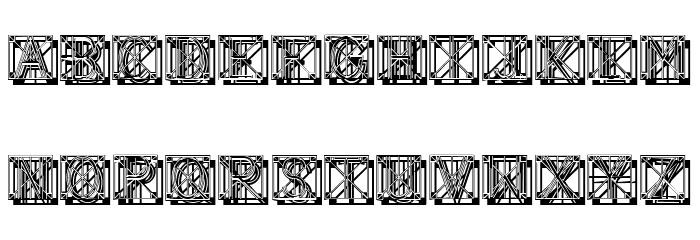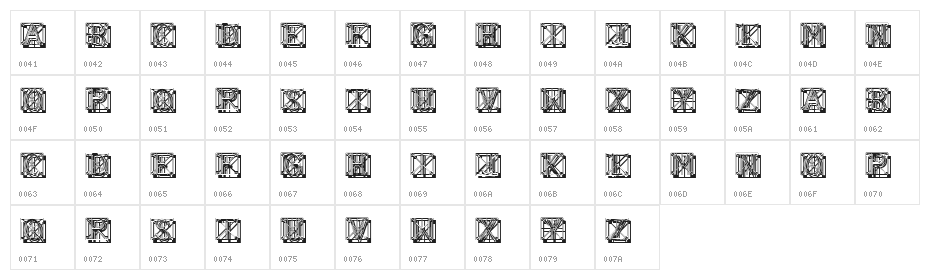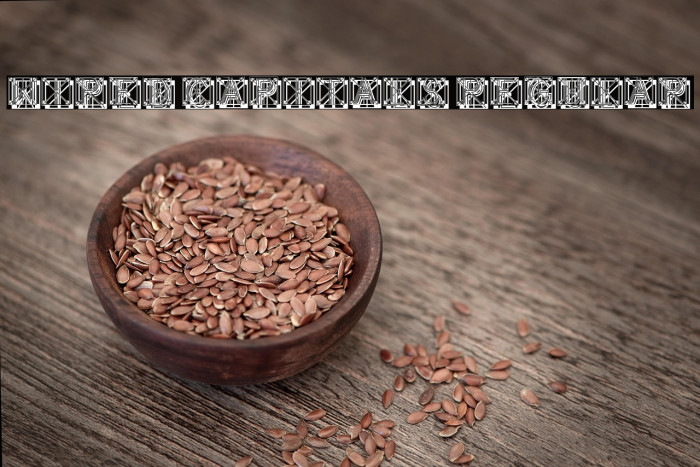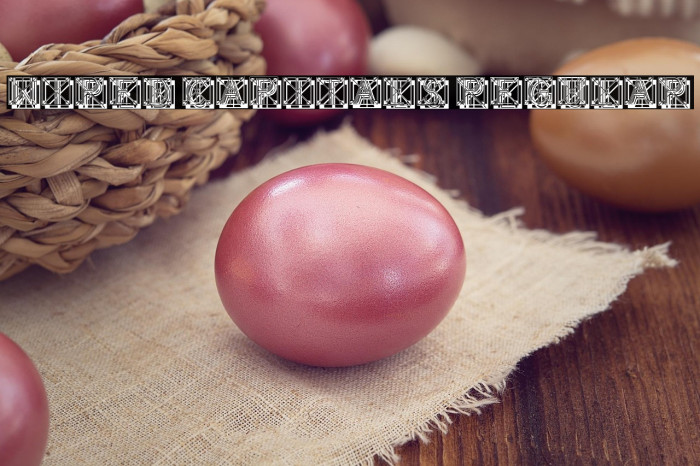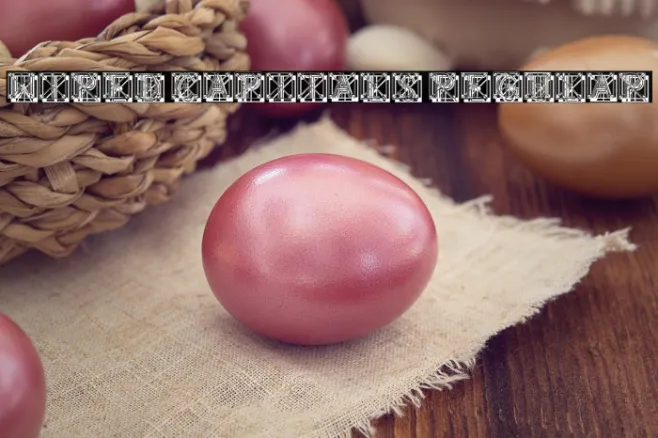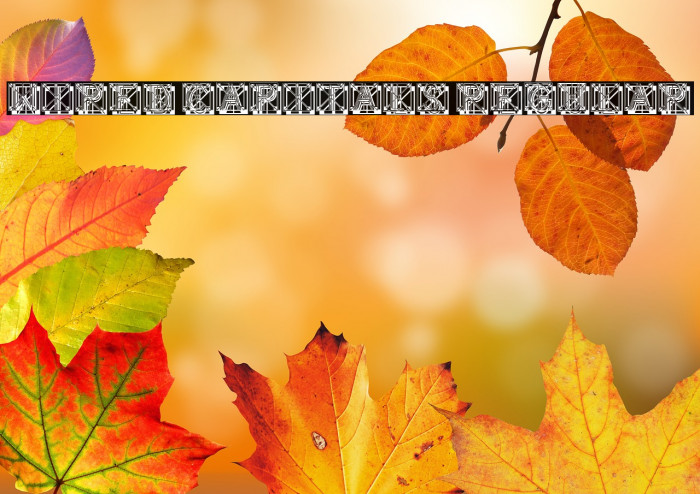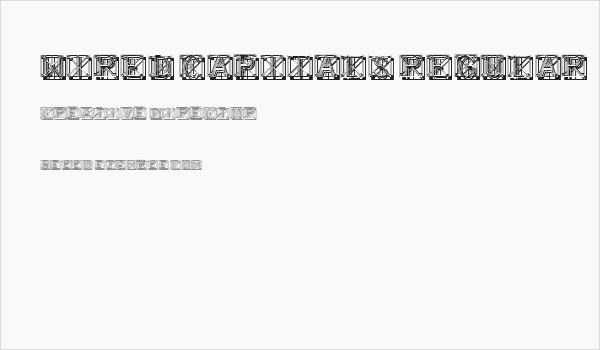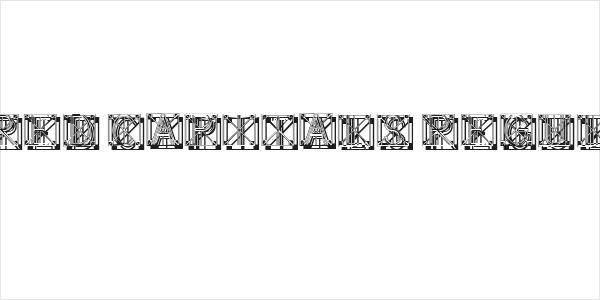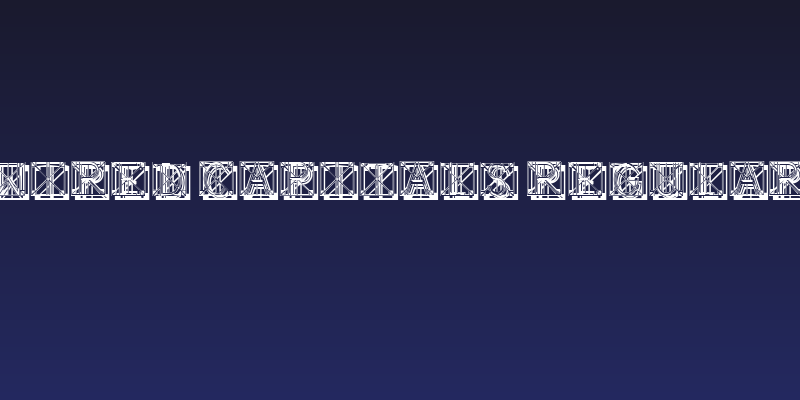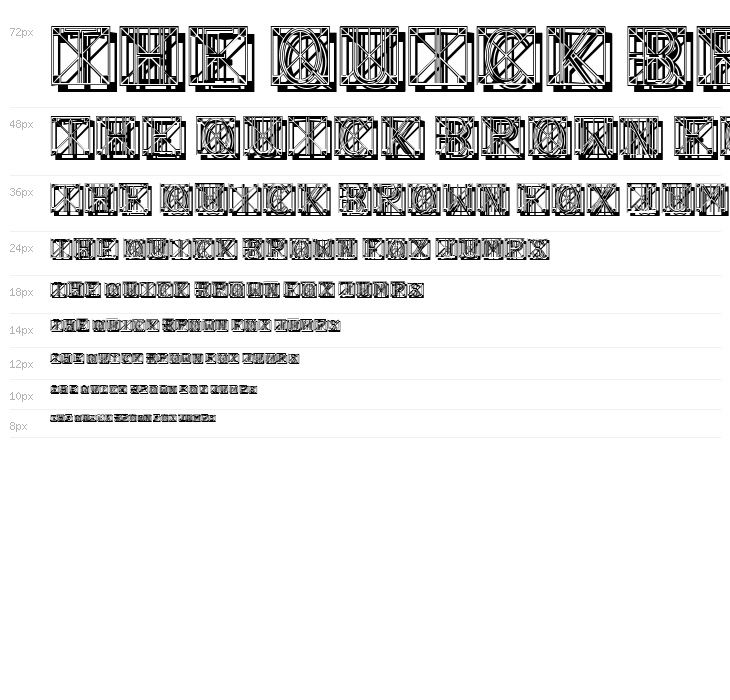
Wired Capitals Regular Font
Wired Capitals Regular Description
This font features an intricate, geometric design with a wired, grid-like structure. Each letter is enclosed within a square, creating a unique and modern appearance. The lines are thin and precise, forming a complex network that gives the font a technical and futuristic feel. The characters are uppercase only, with consistent sizing and alignment, making it suitable for decorative purposes. The overall style is highly detailed, with a focus on symmetry and balance, offering a visually striking and artistic presentation.
Proposed ProjectsIdeal for tech-themed posters, modern art projects, and innovative branding designs.